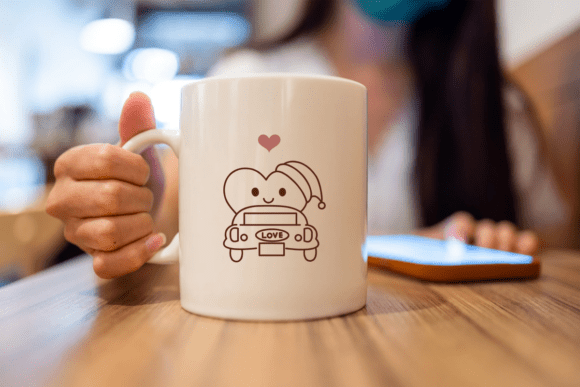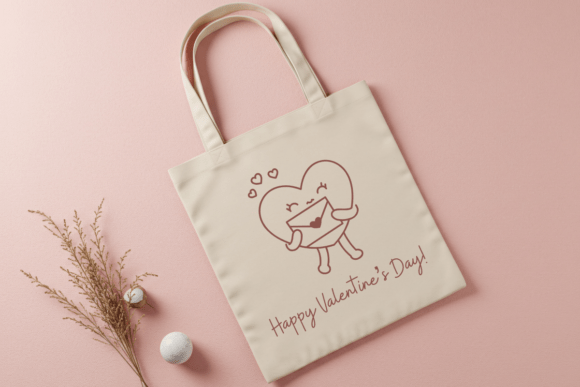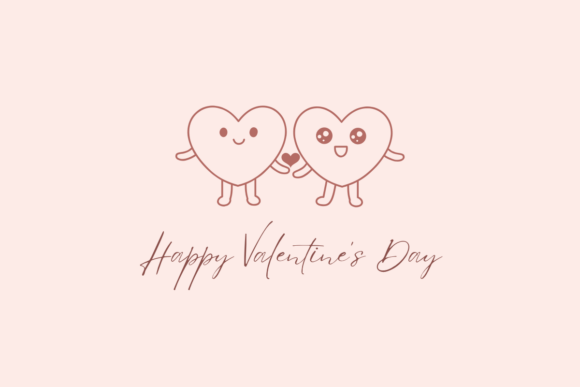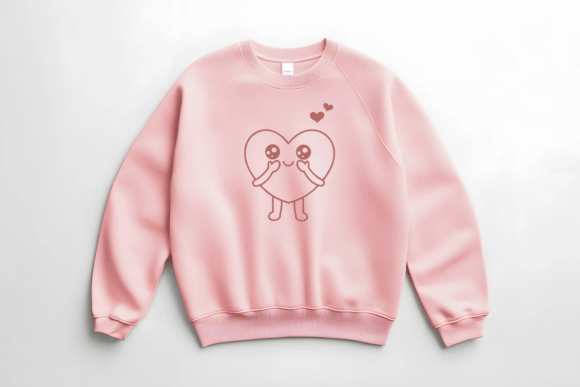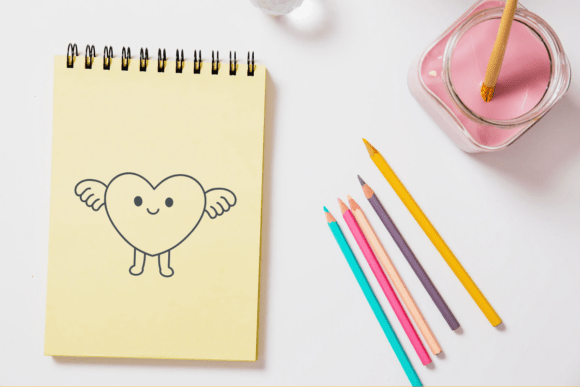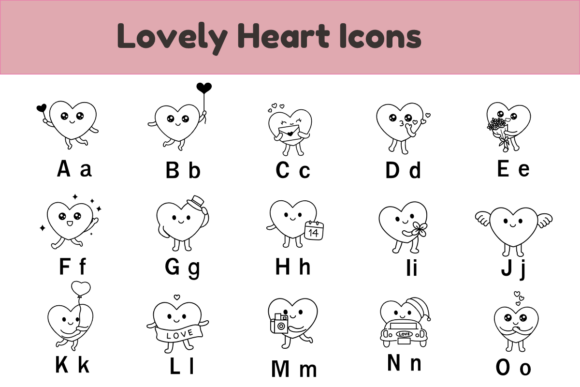
Introduction to Lovely Heart Icons Font
Remember that moment when you’re brainstorming ideas for a Valentine’s Day design project, and you can’t quite capture the essence of love and warmth on paper? The struggle is real, but fear not, dear designers! This is where the Lovely Heart Icons Font comes to the rescue, offering a comprehensive collection of high-quality, emotive heart characters that will elevate your designs to the next level.
This delightful dingbats font is a treasure trove of creative possibilities, featuring a wide range of heart icons that can be used to add a touch of sweetness to your projects. With a transparent background and a free download option, the Lovely Heart Icons Font is an invaluable design resource that will save you time and spark joy in your work. Whether you’re a seasoned pro or a newcomer to the world of design, this font is sure to become your go-to companion for all your creative projects.
Key Features of Lovely Heart Icons Font
- High-quality vector design with a transparent background, ideal for creative projects and designs.
- Comprehensive set of 100+ heart icons in various styles and shapes, perfect for designers and artists.
- Each icon is carefully crafted with a high resolution of 300 DPI, suitable for printing and large-scale designs.
- Easy to use and customize, with scalable designs that can be resized without losing quality.
- Perfect for adding a touch of love and warmth to any creative project, from greeting cards to advertising campaigns.
I recently had the chance to work with the Lovely Heart Icons Font, and I must say it’s been a lovely addition to my design toolbox. ✨
First off, the quality of the font is top-notch. The crisp lines and intricate details make it perfect for any creative project that requires a touch of whimsy. The transparent background option is also a huge plus, allowing me to easily combine the icons with other design elements.
- High quality design
- Variety of icons
- Some of the icons may be too small for certain applications
Overall, I’m really impressed with the Lovely Heart Icons Font. It’s a great addition to any designer’s toolkit, and I highly recommend it for any creative project.
The Lovely Heart Icons Font is perfect for various creative projects, including social media graphics, infographics, and presentations. Its high-quality design and transparent background make it an ideal resource for designers and non-designers alike.